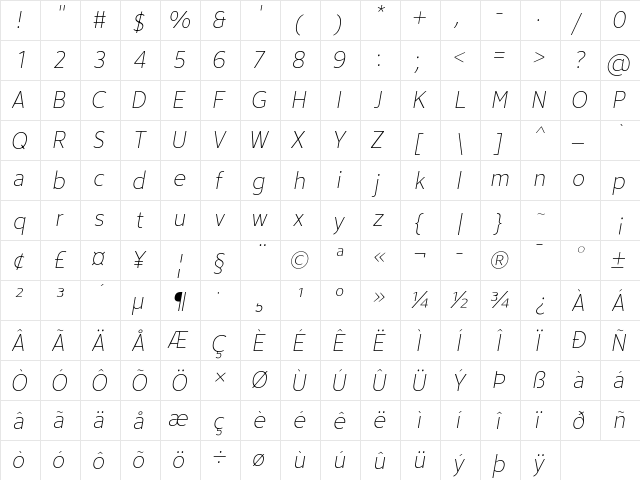
Avancement 2020 Thin Italic
Design Context for Avancement 2020 Typeface
Avancement 2020 takes a measured approach to typography — its balanced proportions and neutral character make it a reliable workhorse for both digital and print work. The slanted form adds forward momentum and visual energy. Its slender proportions lend an understated elegance to any composition.
Pro Tip: Use Avancement 2020 for emphasis, pull quotes, and subheadings where its slanted energy can add rhythm to the layout.